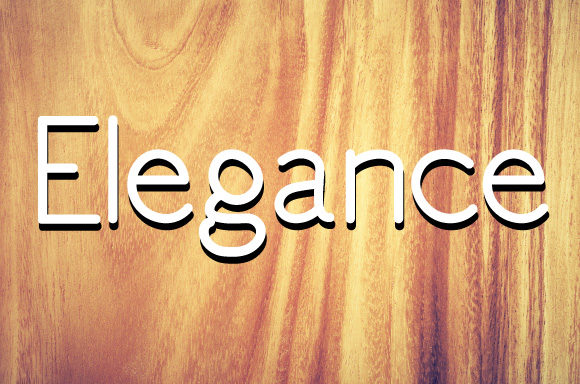
**Introducing Callipso: The Font of Festive Charm**
Prepare to be enchanted by Callipso, the sans serif font that embodies the spirit of Christmas. Its graceful curves and crisp lines dance across paper like snowflakes, evoking the warmth and joy of the holiday season.
**A Font for Every Occasion**
Callipso's versatility extends beyond Christmas cards. Its timeless elegance lends itself to an array of branding, packaging, invitations, and more. Whether you seek to create a captivating logo, a heartfelt invitation, or a festive label, Callipso will elevate your creations with its effortless sophistication.
**A Touch of Whimsy**
Callipso's playful undertone adds a touch of whimsy to your designs. Its cheerful letters are reminiscent of childhood laughter and the magic of the holidays. Whether you're crafting a whimsical poster or a charming greeting card, Callipso will infuse your words with a sense of merriement.
**The Perfect Gift for Designers**
For designers seeking a font that captures the essence of the holiday season, Callipso is the perfect present. Its versatility and festive charm make it an invaluable addition to any design toolbox. Whether you're a seasoned professional or an aspiring artist, Callipso will inspire your creativity and spread holiday cheer through your designs.
**Crafted with Precision**
Each letterform in Callipso has been meticulously crafted by our team of expert typographers. Their passion for detail is evident in the font's smooth curves, crisp edges, and balanced proportions. Callipso is a testament to the power of precision and artistry.